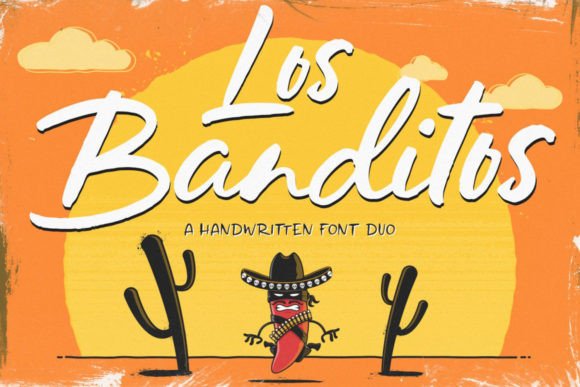
Introducing Los Banditos Font, the ultimate choice for anyone seeking cool fonts for tattoos script. Created by the talented artist ivanrosenberg, this font family will undoubtedly elevate your designs to new heights. With its stylish and modern script, Los Banditos Font is a must-have for every creative individual looking to make a lasting impression.
What sets Los Banditos Font apart is its impeccable attention to detail. Each letter has been expertly crafted with elegant curves and fluid strokes, resulting in a typeface that exudes sophistication and charm. The smooth and seamless lines of this font make it visually captivating, leaving a lasting impact on anyone who lays eyes on it.
Versatility is at the core of Los Banditos Font's appeal. It effortlessly adapts to any project, making it the perfect choice for a wide range of creative endeavors. Whether you're working on branding materials or designing stunning invitations, this font delivers a bold statement that captivates your audience. Its ability to convey both professionalism and creativity makes it a powerful tool for any designer or artist.
But what truly sets Los Banditos Font apart is its ability to evoke emotion. With its captivating design and artistic flair, this font brings your words to life, infusing them with personality and depth. It adds an element of intrigue and mystique to your creations, drawing your audience in and leaving them wanting more.
Imagine the impact of a tattoo script that not only showcases your unique style but also leaves a lasting impression on everyone who sees it. With Los Banditos Font, you can turn your body into a canvas of self-expression, making a statement that is as bold and captivating as you are.
Don't settle for ordinary fonts when you can have extraordinary. Los Banditos Font is the epitome of creativity and innovation, allowing you to stand out from the crowd and make a statement that resonates with your audience. It's time to unleash your imagination and let Los Banditos Font be your creative accomplice.